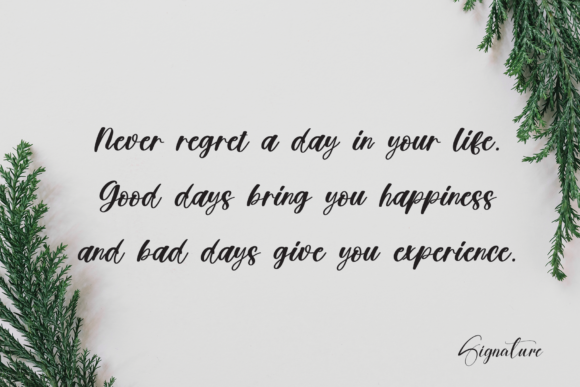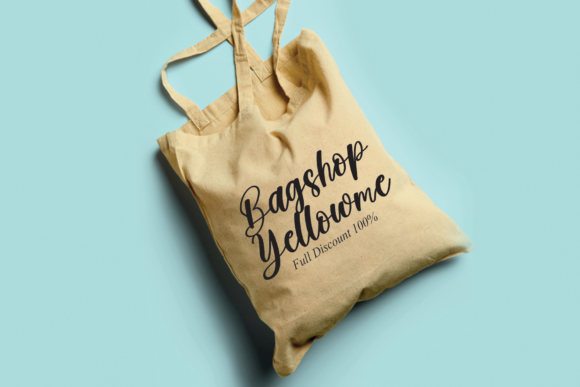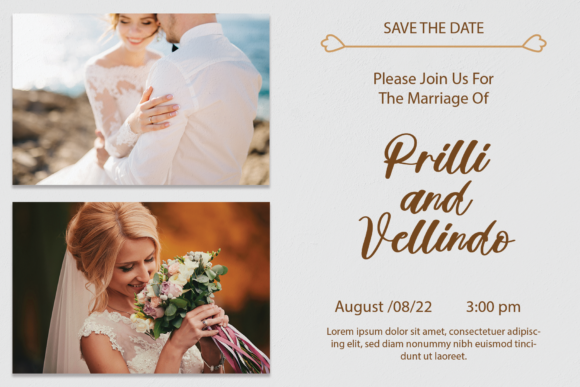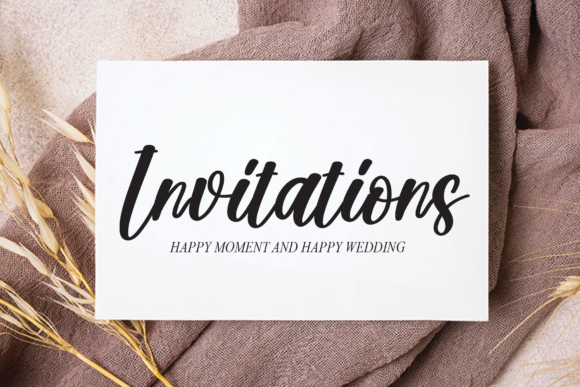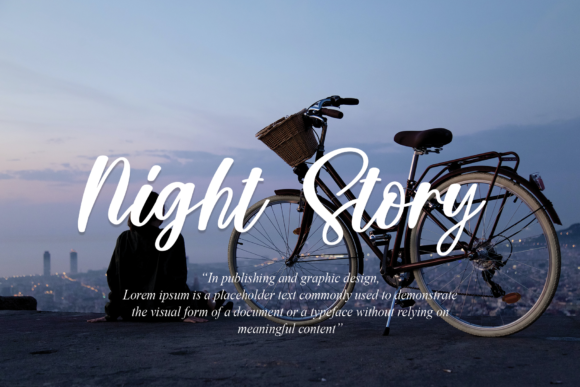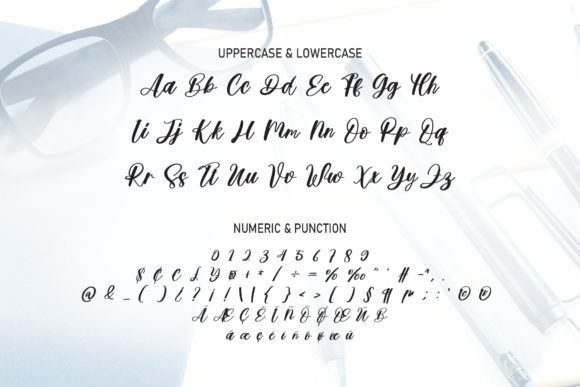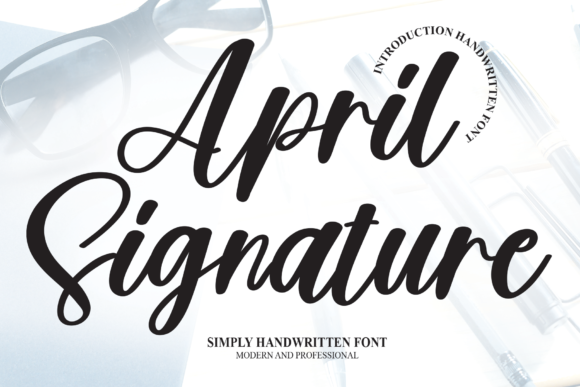
Introducing April Signature Font: The Sweet and Cursive Handwritten Font for Your Design Needs
Are you a designer or crafter looking for a font that can add a touch of sweetness and romance to your projects? Look no further than the April Signature Font. This beautiful, cursive handwritten font is perfect for a variety of design ideas and is sure to bring a joyful and romantic feel to your work.
What is April Signature Font?
April Signature Font is a unique and elegant font that is designed to bring a personal touch to your designs. With its sweet and cursive handwritten style, this font is perfect for creating beautiful and eye-catching projects. Whether you’re working on a branding project, a wedding invitation, or a craft project, April Signature Font is sure to impress.
Key Features of April Signature Font
• Sweet and Cursive Handwritten Style: April Signature Font features a beautiful, cursive handwritten style that is sure to add a touch of elegance and sophistication to your designs.
• Versatile and Flexible: This font is perfect for a variety of design ideas, from branding and advertising to wedding invitations and craft projects.
• Easy to Read and Understand: Despite its elegant and cursive style, April Signature Font is easy to read and understand, making it perfect for use in a variety of contexts.
• High-Quality and Unique: April Signature Font is a high-quality, unique font that is sure to stand out from the crowd and make your designs shine.
How to Use April Signature Font
April Signature Font is easy to use and can be incorporated into a variety of design projects. Here are a few ideas to get you started:
• Branding and Advertising: Use April Signature Font to create beautiful and eye-catching branding materials, such as logos, business cards, and brochures.
• Wedding Invitations and Stationery: Add a touch of romance and elegance to your wedding invitations and stationery with April Signature Font.
• Craft Projects: Use April Signature Font to create beautiful and unique craft projects, such as handmade cards, gift tags, and scrapbook pages.
• Digital Designs: Incorporate April Signature Font into your digital designs, such as social media graphics, blog posts, and website headers.
Benefits of Using April Signature Font
There are many benefits to using April Signature Font in your design projects. Here are a few:
• Adds a Touch of Elegance and Sophistication: April Signature Font is sure to add a touch of elegance and sophistication to your designs, making them stand out from the crowd.
• Creates a Personal and Unique Look: With its sweet and cursive handwritten style, April Signature Font is perfect for creating a personal and unique look that reflects your brand or personal style.
• Easy to Read and Understand: Despite its elegant and cursive style, April Signature Font is easy to read and understand, making it perfect for use in a variety of contexts.
• Versatile and Flexible: April Signature Font is perfect for a variety of design ideas, making it a great addition to your font library.
In conclusion, April Signature Font is a beautiful and elegant font that is perfect for designers and crafters looking to add a touch of sweetness and romance to their projects. With its sweet and cursive handwritten style, this font is sure to bring a joyful and romantic feel to your work. Whether you’re working on a branding project, a wedding invitation, or a craft project, April Signature Font is sure to impress.